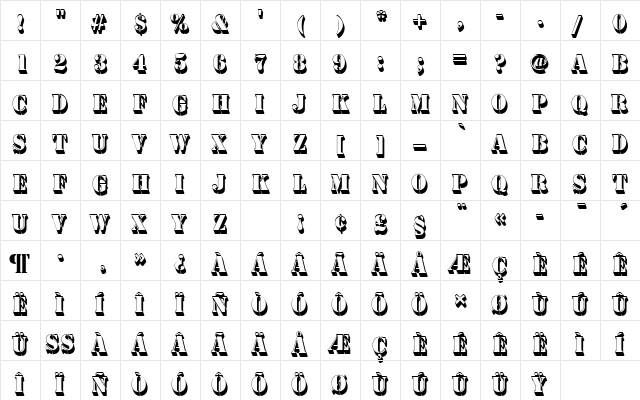
StencilDSh1 Regular
Design Context for StencilDSh1 Typeface
StencilDSh1 borrows the utilitarian aesthetic of stencil lettering, with its characteristic cutaways and no-frills construction lending an industrial edge.
Ideal for industrial branding, streetwear, military-adjacent aesthetics, and urban signage projects.
Pro Tip: Pair StencilDSh1 with raw, utilitarian design elements — exposed concrete textures, flat colour, and minimal ornamentation suit it well.